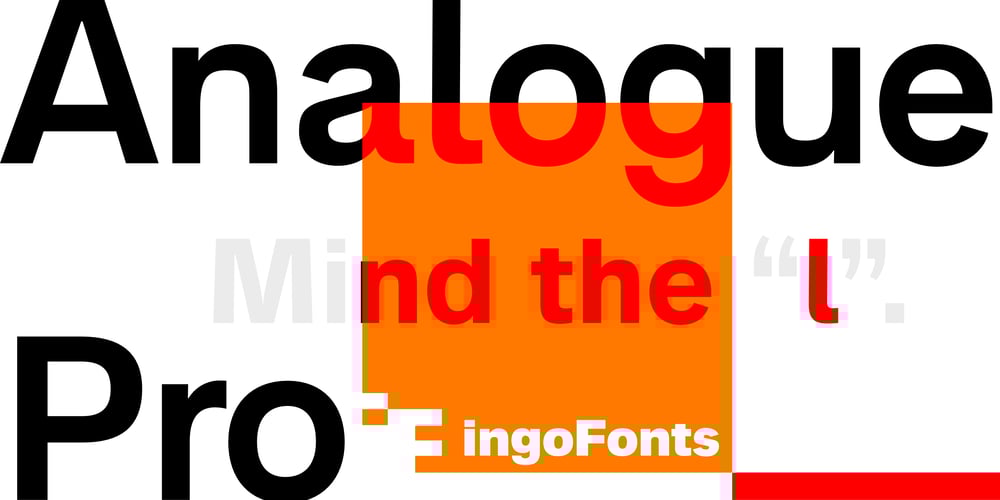
Analogue Pro Font Family was designed by Ingo Zimmermann and published by Ingo. Analogue Pro contains 15 styles and family package options. very traditional forms strongly slanted italic consistant proportions extraordinary ligatures swashes alternate letters alternate figures lower case l with a hooked “foot” Believe it or not, there are hardly any sans serif fonts in which the lower case letter l also has the hooked form of an l. Instead, we readers have to constantly distinguish whether we are seeing an uppercase I or a lower case l — just take a look at the word “Illinois”…The ingoFont Analogue was developed for exactly this reason. The intent: To create a pretty much »ordinary«, even classical font with its most striking characteristic being the inclusion of the “crooked l.”As a model, I used the »mother of all sans serifs«, Akzidenz Grotesk from Berthold, with its beginnings going back to the 19th century.Analogue is so to say a new interpretation of Akzidenz Grotesk from ingoFonts. All characters — following the model — have been newly designed.And if you want to emphasize the shape of the hooked foot even more, you can also activate the alternate styles for d, h, m, n (Style Set 1).Conversely, the alternate a somewhat softens the “hooked” impression (Style Set 2).The slanted versions — it isn’t truly a real cursive font — are noticeably stronger with 13° than the italics in comparable fonts, and were given a round e with a mind of its own which distinguishes itself considerably compared to the upright characters in the overall appearance of the font.More modern and formal solutions in detail were chosen for some of the characters, for example the M was given lightly slanted sides; the a reflects the curves of the s; the “feet” of a, l and t match; the flared legs of K and R became a “foot”, too. General proportions were carried over almost completely with no changes from Akzidenz Grotesk as well as the slanted trimming on the open forms of a, c, e, s; in comparison, C, G and S were given straight endings.Analogue contains many ligatures, even discretional ligatures, plus proportional, old style as well as tabular figures.All in all, at first sight Analogue brings back memories of the charm of its well-known predecessor; and yet, many small differences give Analogue an unmistakable certain something…